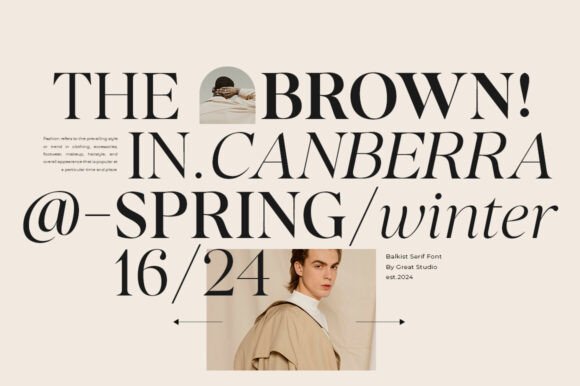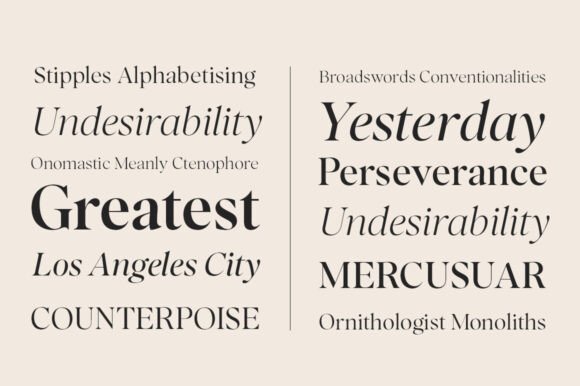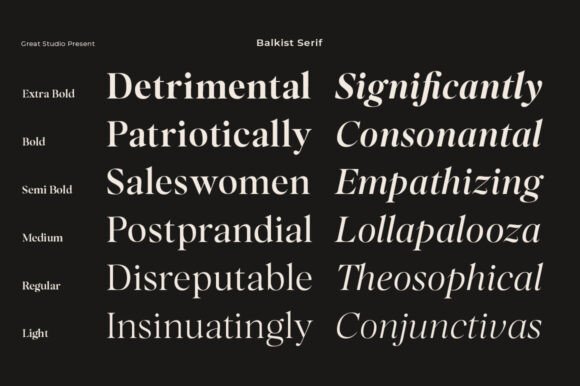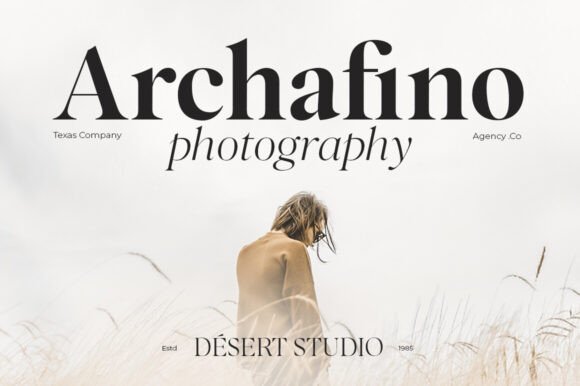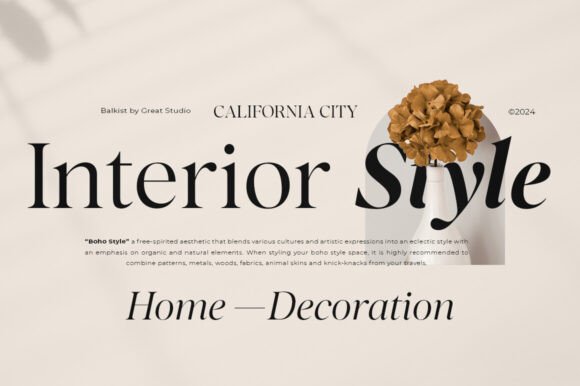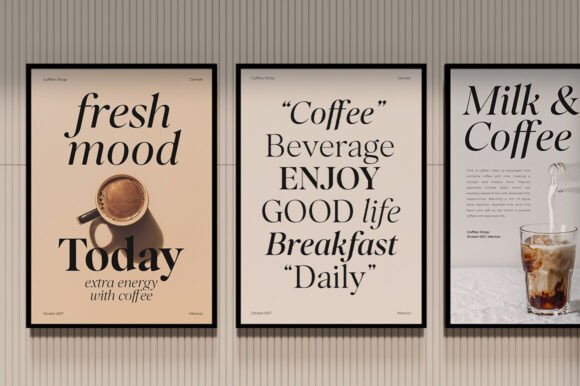
Discover the Elegance of Balkist Font: A Transitional and Contemporary Typeface
In the realm of typography, the right font can elevate a design from ordinary to extraordinary. For designers and crafters seeking a typeface that embodies both harmony and style, Balkist Font stands out as an exceptional choice. This transitional and contemporary high contrast typeface is not only visually appealing but also versatile, making it suitable for a wide array of applications.
The Characteristics of Balkist Font
Balkist is distinguished by its high contrast and harmonious design. The font family offers a range of weights from Light to Extra Bold, providing designers with a broad spectrum of options for their projects. This extensive range allows for greater flexibility, whether the project requires a subtle, light touch or a bold, commanding presence.
One of the defining features of Balkist is its natural curves and charming italics. The font’s design pays special attention to the weighting of these elements, ensuring that they are extraordinarily balanced. Even at thinner weights, Balkist maintains its elegance with lowered contrast and optical corrections that contribute to a warm and soft appearance. This characteristic makes it an excellent choice for both editorial design and branding projects, where readability and aesthetic appeal are paramount.
Language Support and Versatility
Balkist Font boasts an extensive character set that supports over 200 Latin-based languages. This level of versatility is a significant advantage for designers working on international projects or those that require text in multiple languages. The font’s comprehensive language support ensures that it can be used in a variety of contexts, from magazine headings and advertising to packaging and logo design.
Applications of Balkist Font
The versatility of Balkist makes it an ideal choice for numerous applications. In editorial design, its range of weights and elegant appearance make it perfect for headlines and body text. For branding projects, the font’s stylish and contemporary look can help create a memorable visual identity. Additionally, Balkist’s Variable Regular and Italic versions offer designers the flexibility to experiment with different tones and styles, allowing for the creation of unique and captivating designs.
Exploring Design Possibilities with Balkist
Balkist comes with two Variable versions, Regular and Italic, which open up a world of design possibilities. These versions enable designers to fine-tune their creations, exploring a wide range of visual tones and nuances. This feature is particularly beneficial for those seeking to craft distinctive and engaging designs that stand out. The Variable fonts allow for the adjustment of weight and style on the fly, making it easier to perfect a design and uncover its hidden potential.
Why Choose Balkist Font?
For designers and crafters in search of a typeface that combines elegance, versatility, and functionality, Balkist Font is an outstanding option. Its transitional and contemporary design, coupled with its high contrast and harmonious appearance, makes it suitable for a myriad of projects. Whether working on editorial design, branding, advertising, or any other creative endeavor, Balkist offers the tools needed to produce beautiful, professional-grade work.
In conclusion, Balkist Font is a powerful tool in the world of typography. Its extensive range of weights, charming design elements, and broad language support make it an invaluable asset for designers seeking to elevate their projects. By choosing Balkist, designers can harness the power of a versatile and stylish typeface, unlocking new possibilities for creative expression and design innovation.
With Balkist Font, the possibilities are endless. Explore its range, experiment with its Variable versions, and discover how this transitional and contemporary typeface can bring your designs to life.